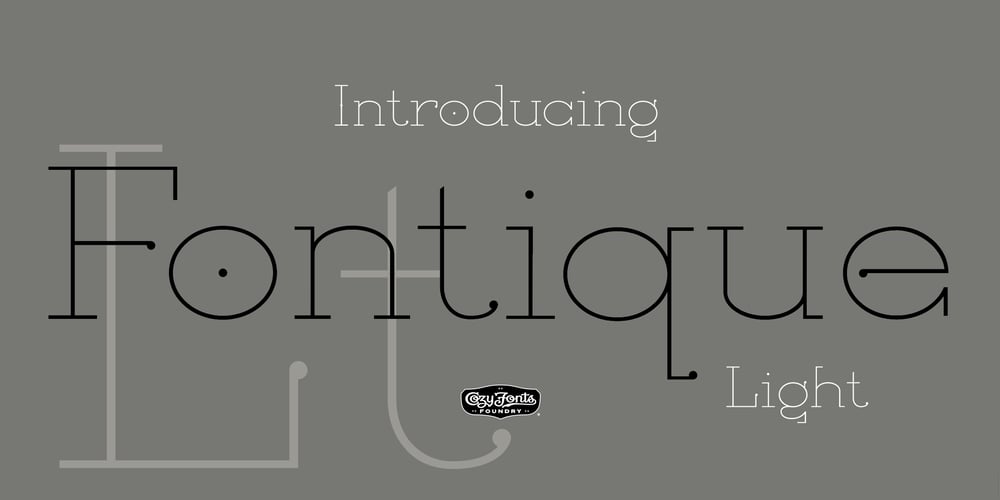
Fontique Font Family was designed by Tom Nikosey and published by CozyFonts. Fontique contains 6 styles and family package options. Fontique, a vintage-inspired serif~font family that bridges the timeless elegance of classic typography with a modern, fresh approach. Its refined serifs and delicate curves echo the sophistication of 19th~century typefaces, while subtle contemporary tweaks, such as balanced proportions and versatile weights, ensure its relevance in the design landscape.Perfect for everything from luxurious branding to editorial layouts, Fontique offers a harmonious blend of tradition and innovation, making it both nostalgic and contemporary. Fontique is available, on its release, 6 styles; Light, Regular, Oblique, Bold, Extra Bold, & Heavy. You’ll notice there are several glyphs where a subtle bullet is built into these glyphs giving the font a special touch. There are additional special glyph symbols added to this font family. Fontique’s name is loosely derived from the alphabet resembling feelings of antique, boutique settings, yet its characters’ cleanliness, balance, and clear legibility are fresh and contemporary. There are over 380 glyphs in each of these fonts that work in over 100 languages.This is Cozyfonts 28th font family!